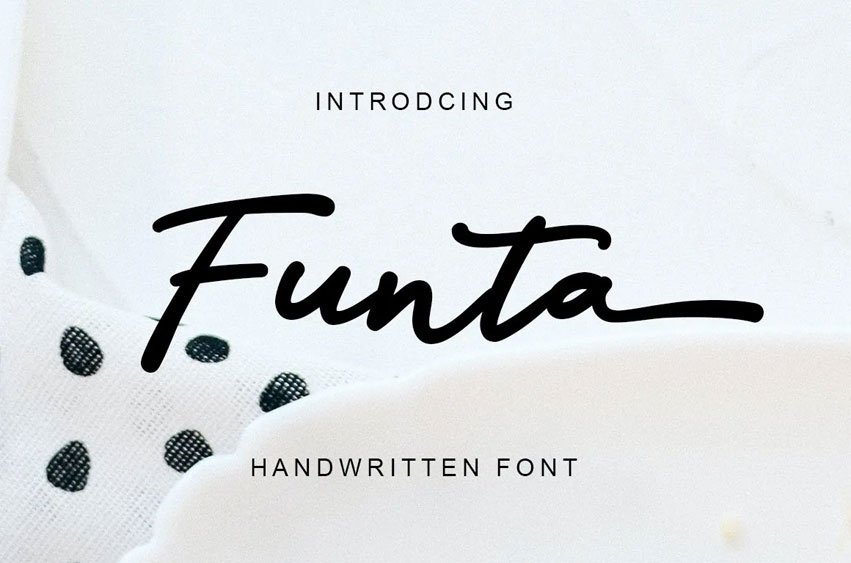
Funta Font is a handwritten script font design that can be used to style text. It is characterized by tails and is slightly cursive, often giving the appearance of playful or relaxed text. Funta is widely used for design projects such as invitations, greeting cards, posters, headers or just used to express words over the background.